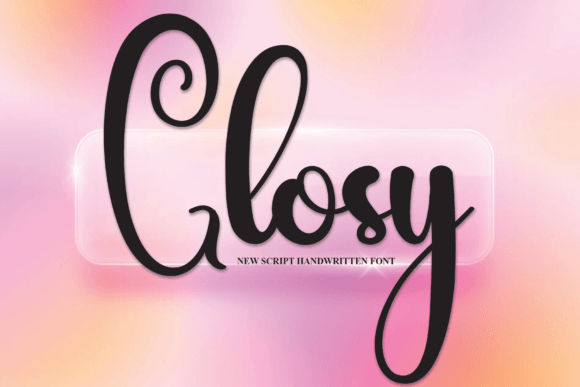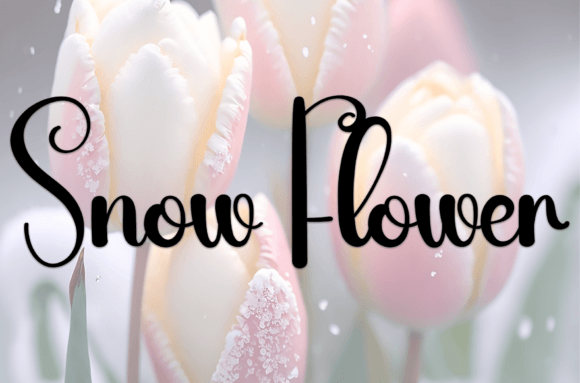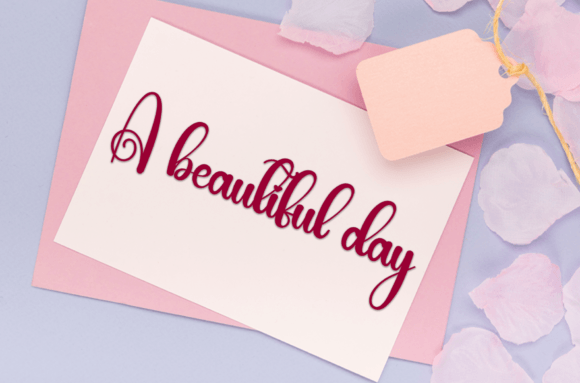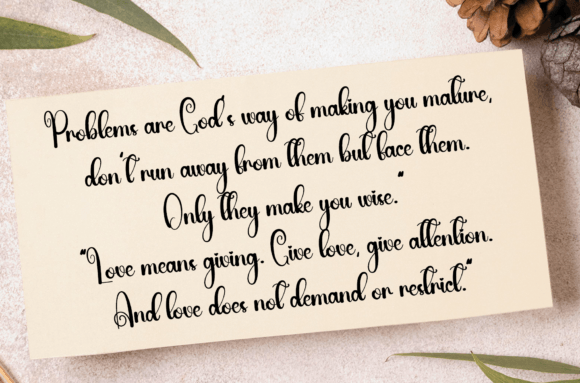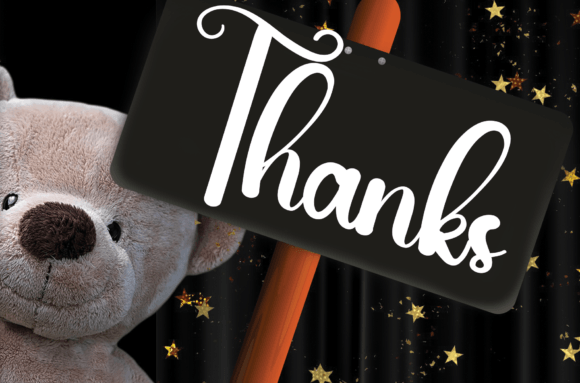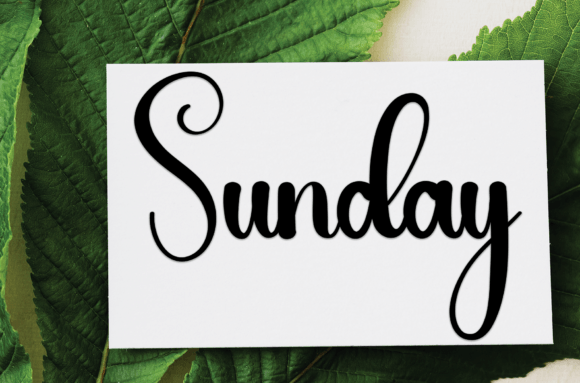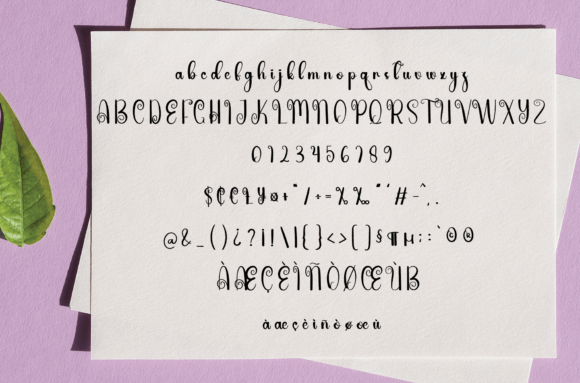
Glosy
About Glosy
Glosy is a sweet and friendly handwritten font. Creative and cute, this font is ideal for writing wedding invitations, cards, or any other design that might need a fun touch!